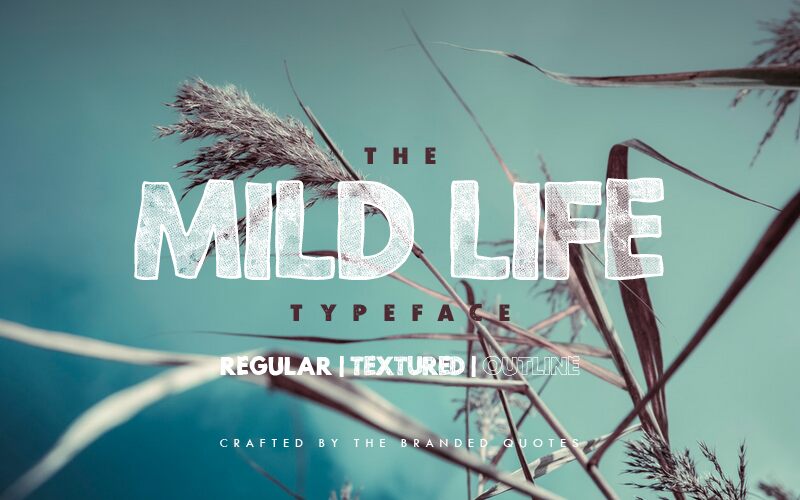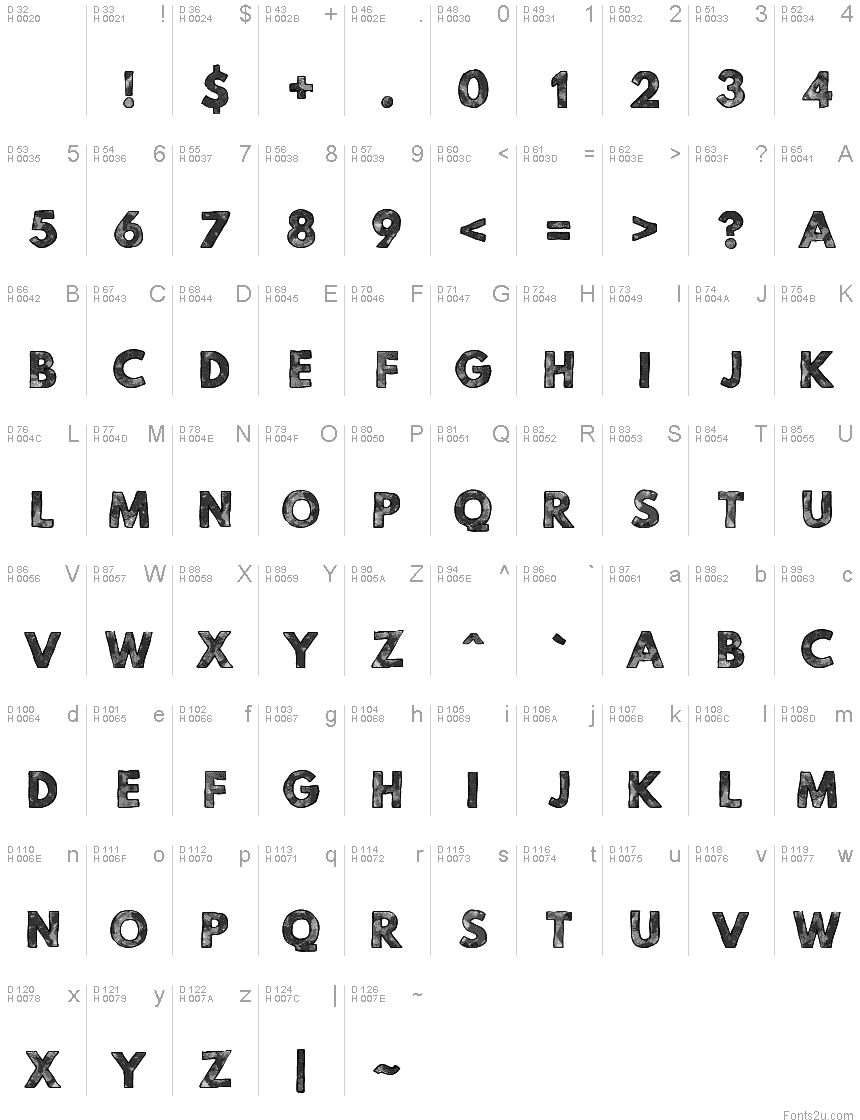
Mild Life is created by the joy of the ordinary days. Simple yet gutsy. Normal but elegant. Fun yet mysterious.
Mild Life Regular - Works best when introducing your newest script! The squiggly edges are made to blend well with your watercolor fonts and at the same time, won't override your presentation. Also, your new logo and band merch will be needing this font.
Mild Life Outline - Like a Micron 05, this font is a multi-tasker!
Mild Life Textured - Not just an ordinary Sans Serif; it bears its own watercolor effect. Match perfectly for your book covers, freehand illustrations and almost everything that has hand-drawn feel projects.